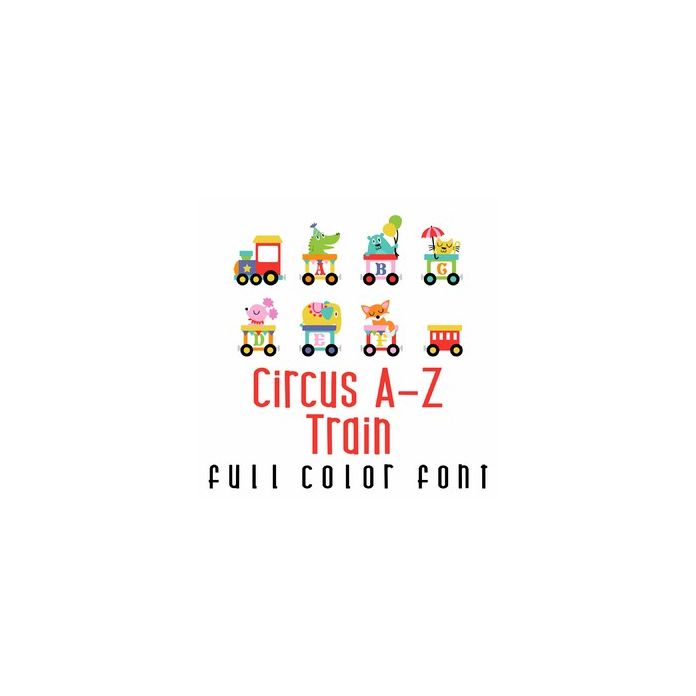
This adorable full color doodlebat font features a circus train from A-Z. Perfect for classrooms, cards, crafts, gifts, decor, scrap book pages, planner stickers and more! Engine and Caboose are (),{}, []